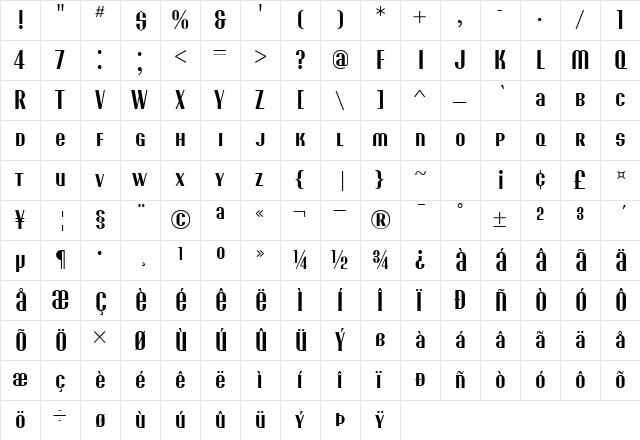
EunoiaUnicase Regular
Design Context for EunoiaUnicase Typeface
EunoiaUnicase takes a measured approach to typography — its balanced proportions and neutral character make it a reliable workhorse for both digital and print work.